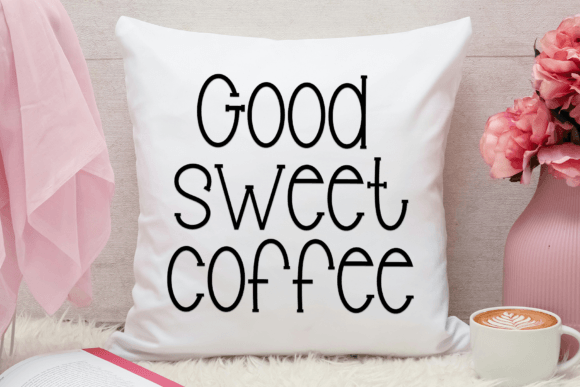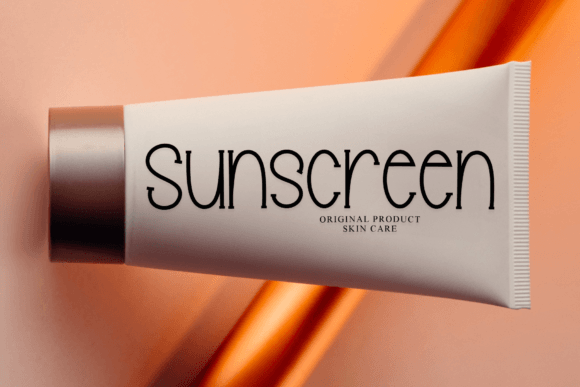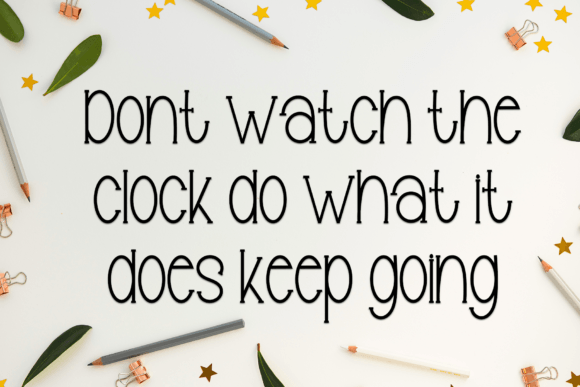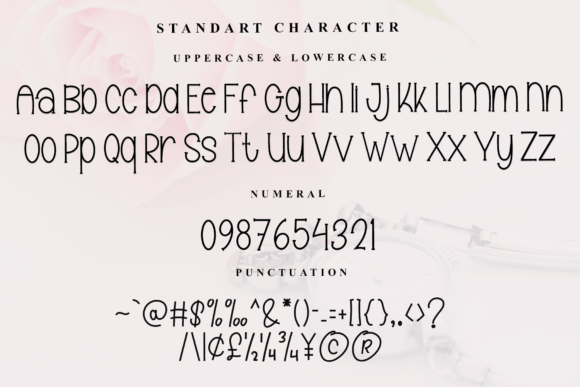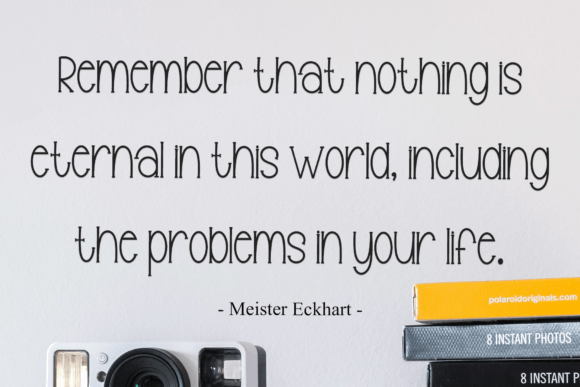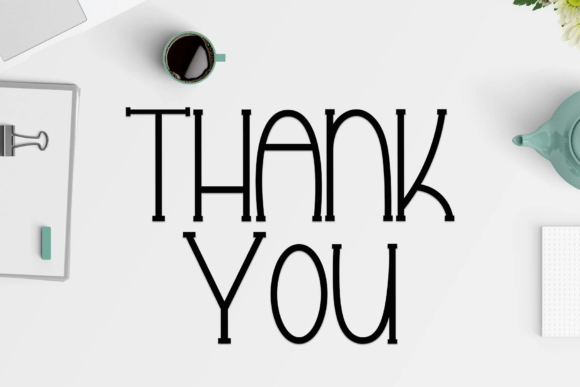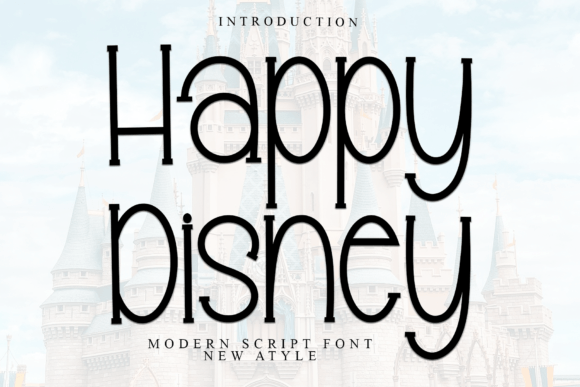
Introducing Happy Disney Font: The Perfect Addition to Your Design Arsenal
Are you a designer or crafter looking for a font that can elevate your creative projects to the next level? Look no further than the Happy Disney Font. This delicate, elegant, and timeless font is sure to become a staple in your design toolkit. With its beautiful and well-balanced characters, Happy Disney Font matches a wide pool of designs, making it the perfect addition to your most creative ideas.
The Characteristics of Happy Disney Font
So, what makes Happy Disney Font so special? For starters, its delicate and elegant design makes it perfect for a wide range of projects, from wedding invitations and party decorations to branding and advertising materials. The font’s well-balanced characters ensure that your text is always clear and easy to read, making it perfect for both digital and print applications.
PUA Coded for Easy Access to Glyphs and Ligatures
One of the standout features of Happy Disney Font is that it is PUA (Private Use Area) coded. This means that you can access all the amazing glyphs and ligatures easily, without having to worry about complicated font editing software. With PUA coding, you can simply copy and paste the glyphs and ligatures you need into your design, making it easy to add a touch of personality and whimsy to your projects.
Endless Design Possibilities with Happy Disney Font
The versatility of Happy Disney Font is one of its greatest strengths. Whether you’re designing a logo, creating a social media graphic, or crafting a handmade card, this font can help you bring your ideas to life. Its elegant design and beautiful characters make it perfect for a wide range of projects, including:
• Wedding invitations and party decorations
• Branding and advertising materials
• Social media graphics and blog posts
• Handmade cards and gift tags
• Signs and banners
Why Designers and Crafters Love Happy Disney Font
So, why do designers and crafters love Happy Disney Font? Here are just a few reasons:
• Elegant design: Happy Disney Font has a timeless, elegant design that adds a touch of sophistication to any project.
• Versatility: This font is perfect for a wide range of projects, from digital designs to handmade crafts.
• Easy to use: With PUA coding, accessing glyphs and ligatures is easy and straightforward.
• High-quality: Happy Disney Font is a high-quality font that is designed to produce crisp, clear text.
Tips for Using Happy Disney Font in Your Designs
Here are a few tips for using Happy Disney Font in your designs:
• Experiment with different sizes and colors: Happy Disney Font looks great in a variety of sizes and colors, so don’t be afraid to experiment and find the perfect combination for your project.
• Pair it with other fonts: Happy Disney Font pairs well with a wide range of fonts, so try pairing it with other fonts to create a unique and interesting design.
• Use it for headings and titles: Happy Disney Font is perfect for headings and titles, where its elegant design can really shine.
In conclusion, Happy Disney Font is a must-have for any designer or crafter looking to elevate their creative projects to the next level. With its delicate, elegant, and timeless design, this font is perfect for a wide range of projects, from wedding invitations and party decorations to branding and advertising materials. Its PUA coding makes it easy to access glyphs and ligatures, and its versatility and high-quality design make it a joy to use. So why wait? Add Happy Disney Font to your design arsenal today and see how it can bring your creative ideas to life!